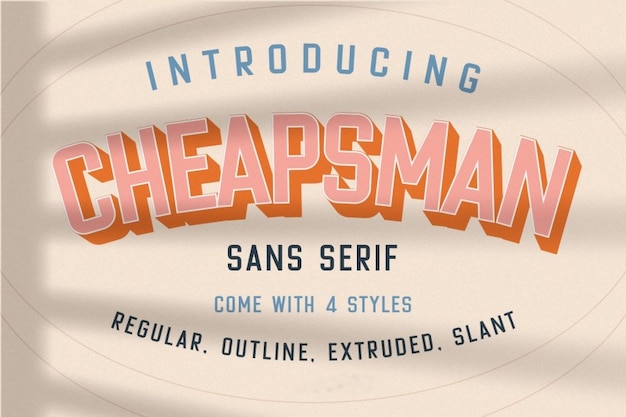
Cheapsman Font
Cheapsman is a font that epitomizes modern simplicity with its blocky design. Its straightforward lines and geometric precision create a clean and minimalistic look, making it a top choice for contemporary design. Whether you're working on branding, posters, or any project that calls for a bold, no-nonsense aesthetic, Cheapsman effortlessly adds a touch of modernity. This font embodies the essence of simple, blocky design, making it an excellent option for those who appreciate the power of clear lines and geometric shapes in their creative endeavors. Cheapsman is where modern meets minimalism, adding a bold and sleek edge to your design projects.